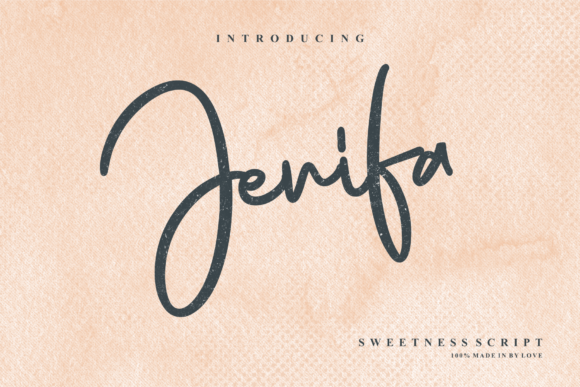
Are you ready to add a touch of modern elegance to your designs? Meet Jenifa, the captivating script font from 24Design Studios. Each meticulously crafted letter exudes sophistication, making Jenifa the perfect choice for adding a touch of style to your projects.
Whether you're creating wedding invitations, social media graphics, or branding materials, Jenifa's graceful curves and flowing lines will transform your designs into masterpieces. Its undeniable charm will captivate your audience, leaving a lasting impression.
Indulge in the beauty of Jenifa and elevate your designs to new heights. Experience the magic of this modern script and watch your creations come to life with an air of effortless grace.